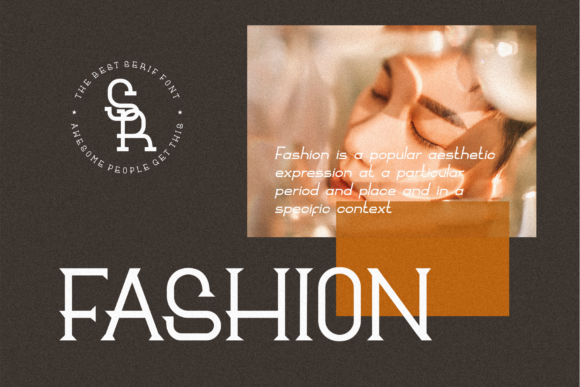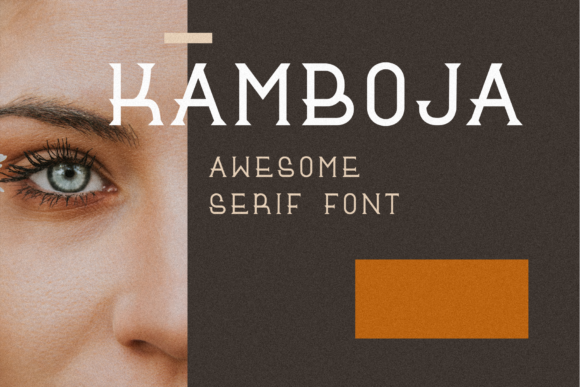
Introduction to Kamboja Font
Create gorgeous and timeless designs with Kamboja, an interesting and unique serif font.
Fall in love with its incredibly stylish look and use it for logos, quotes, invitations, business cards, power point presentations, and more .
Key Features of Kamboja Font
Why Choose Kamboja Font?
Kamboja Font offers exceptional quality and versatility, making it a valuable addition to your design toolkit. Whether you’re creating for personal projects or commercial use, Kamboja Font delivers professional results.